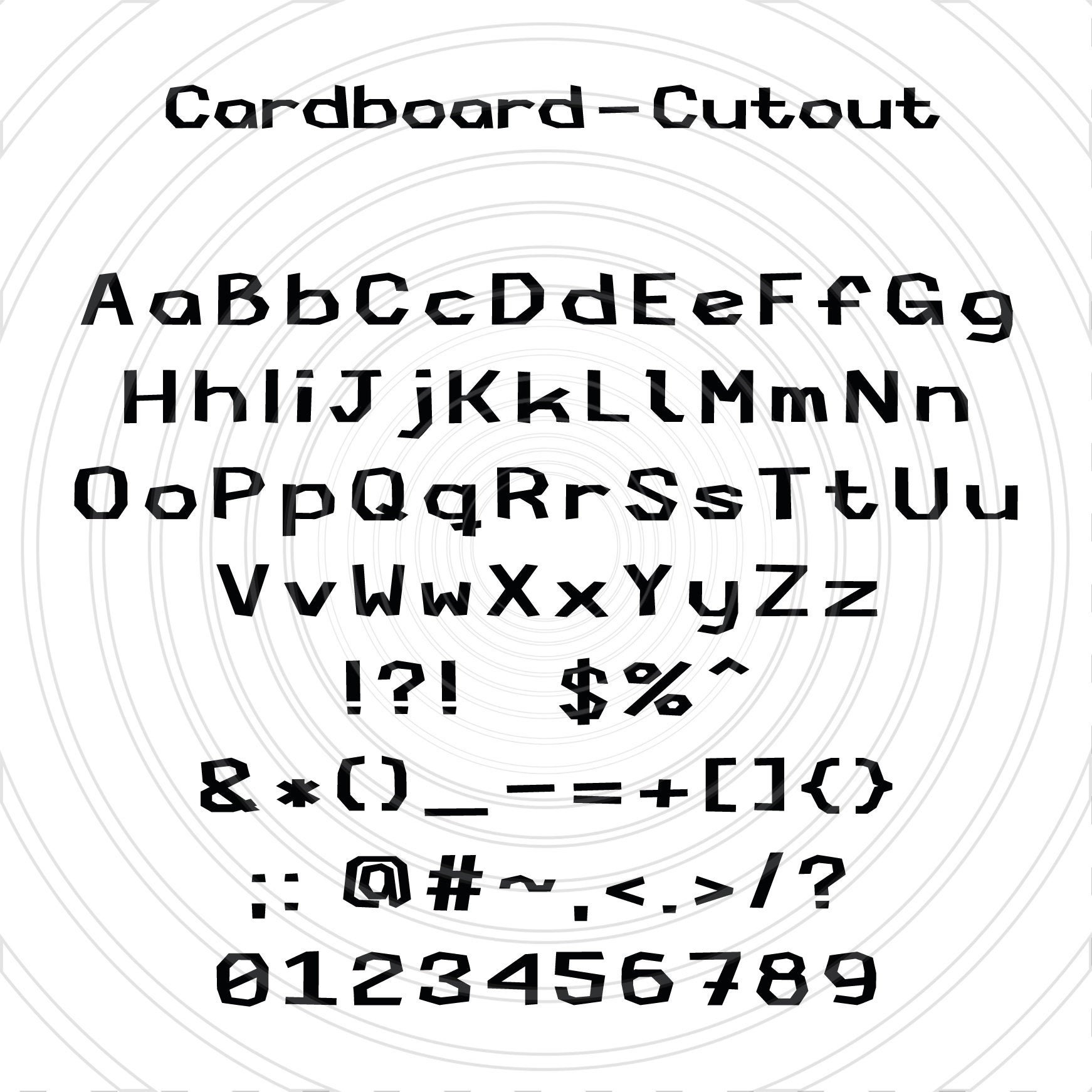
Cardboard Cutout Font Download . See how to download cardboard cutout for free! Click to find the best 2 free fonts in the cardboard cutout style. A cartoonish geometric font with straight lines and a rough look. Now also available as a color font. Cardboard cutout font free download. A fun little font made using nothing but rectangles and boolean operations. A fun little font made using nothing but rectangles and boolean operations. Preview the font characters, font info, font tags and fonts in use on font meme website. A cartoonish geometric font with straight lines and a rough look. A cartoonish geometric font with straight lines and a rough look. Every font is free to download! A great choice for highlighting your design elements. Looking for cardboard cutout fonts?
Now also available as a color font. Every font is free to download! Preview the font characters, font info, font tags and fonts in use on font meme website. A cartoonish geometric font with straight lines and a rough look. Click to find the best 2 free fonts in the cardboard cutout style. A great choice for highlighting your design elements. A fun little font made using nothing but rectangles and boolean operations. A cartoonish geometric font with straight lines and a rough look. Looking for cardboard cutout fonts? A cartoonish geometric font with straight lines and a rough look.
Cardboard Cutout Color font
Cardboard Cutout Font Download Click to find the best 2 free fonts in the cardboard cutout style. Now also available as a color font. A cartoonish geometric font with straight lines and a rough look. Preview the font characters, font info, font tags and fonts in use on font meme website. A cartoonish geometric font with straight lines and a rough look. Looking for cardboard cutout fonts? Every font is free to download! A fun little font made using nothing but rectangles and boolean operations. See how to download cardboard cutout for free! Cardboard cutout font free download. A cartoonish geometric font with straight lines and a rough look. A fun little font made using nothing but rectangles and boolean operations. Click to find the best 2 free fonts in the cardboard cutout style. A great choice for highlighting your design elements.
Cardboard Cutout Font Download See how to download cardboard cutout for free! A cartoonish geometric font with straight lines and a rough look. A cartoonish geometric font with straight lines and a rough look. Preview the font characters, font info, font tags and fonts in use on font meme website. A cartoonish geometric font with straight lines and a rough look. Now also available. Cardboard Cutout Font Download.
CardboardCutout Font Download For Free, View Sample Text, Rating And Cardboard Cutout Font Download Looking for cardboard cutout fonts? A cartoonish geometric font with straight lines and a rough look. Preview the font characters, font info, font tags and fonts in use on font meme website. Every font is free to download! A fun little font made using nothing but rectangles and boolean operations. Now also available as a color font. A cartoonish geometric. Cardboard Cutout Font Download.
Download free CardboardCutout font, free CardboardCutout.ttf Cutout Cardboard Cutout Font Download Every font is free to download! A cartoonish geometric font with straight lines and a rough look. Now also available as a color font. Preview the font characters, font info, font tags and fonts in use on font meme website. Cardboard cutout font free download. See how to download cardboard cutout for free! A fun little font made using nothing. Cardboard Cutout Font Download.
Cardboard Cutout Text Effect Layer Style TS4DQDJ Cardboard Cutout Font Download Every font is free to download! A cartoonish geometric font with straight lines and a rough look. A cartoonish geometric font with straight lines and a rough look. Preview the font characters, font info, font tags and fonts in use on font meme website. A cartoonish geometric font with straight lines and a rough look. Click to find the best. Cardboard Cutout Font Download.
Cut Outs Font Download Cardboard Cutout Font Download Every font is free to download! A fun little font made using nothing but rectangles and boolean operations. A cartoonish geometric font with straight lines and a rough look. A cartoonish geometric font with straight lines and a rough look. Looking for cardboard cutout fonts? A fun little font made using nothing but rectangles and boolean operations. A cartoonish geometric. Cardboard Cutout Font Download.
Download Free Cardboard Cutout Cutout Font Dafontfree vrogue.co Cardboard Cutout Font Download A cartoonish geometric font with straight lines and a rough look. Cardboard cutout font free download. A cartoonish geometric font with straight lines and a rough look. Preview the font characters, font info, font tags and fonts in use on font meme website. A fun little font made using nothing but rectangles and boolean operations. Every font is free to. Cardboard Cutout Font Download.
Cardboard Cutout Comic Comicbook Action Font Alphabet Letters Etsy Cardboard Cutout Font Download A cartoonish geometric font with straight lines and a rough look. Looking for cardboard cutout fonts? Click to find the best 2 free fonts in the cardboard cutout style. See how to download cardboard cutout for free! A cartoonish geometric font with straight lines and a rough look. A great choice for highlighting your design elements. A fun little font. Cardboard Cutout Font Download.
CardboardCutout Font Cardboard Cutout Font Download Now also available as a color font. A great choice for highlighting your design elements. Looking for cardboard cutout fonts? Click to find the best 2 free fonts in the cardboard cutout style. See how to download cardboard cutout for free! A fun little font made using nothing but rectangles and boolean operations. Cardboard cutout font free download. Preview the. Cardboard Cutout Font Download.
Identifont Cardboard Cutouts JNL Cardboard Cutout Font Download A fun little font made using nothing but rectangles and boolean operations. Looking for cardboard cutout fonts? A cartoonish geometric font with straight lines and a rough look. A fun little font made using nothing but rectangles and boolean operations. A great choice for highlighting your design elements. Preview the font characters, font info, font tags and fonts in use. Cardboard Cutout Font Download.